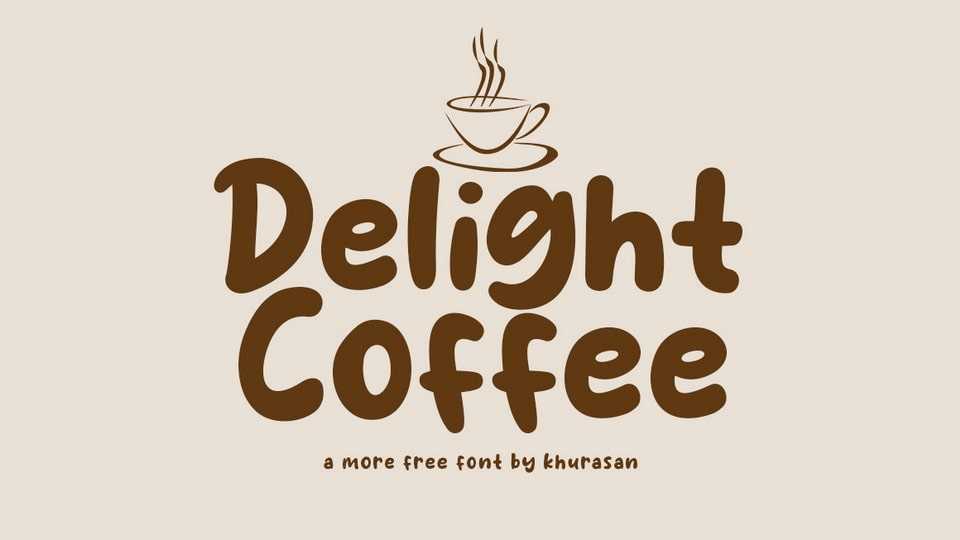
Download Delight Coffee font, a simple and cure handwritten typeface. Delight coffee is perfect for posters, logos, magazines, book covers, banners, and many more lovely designs.